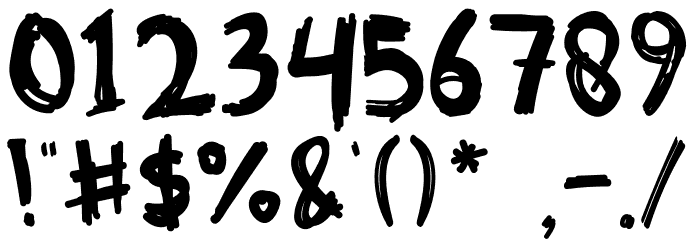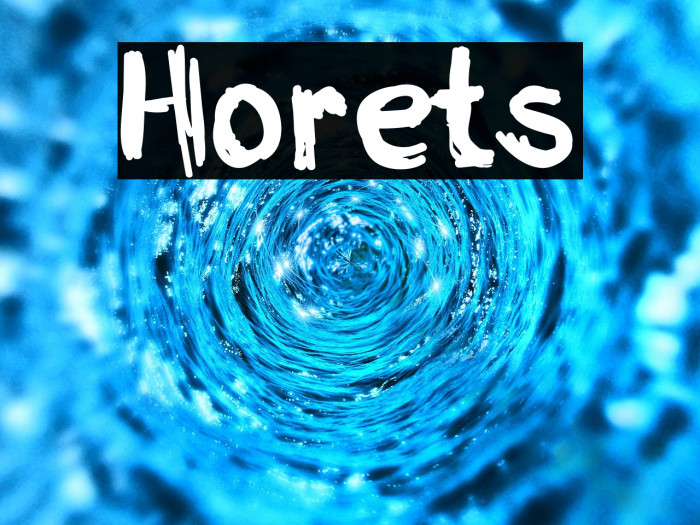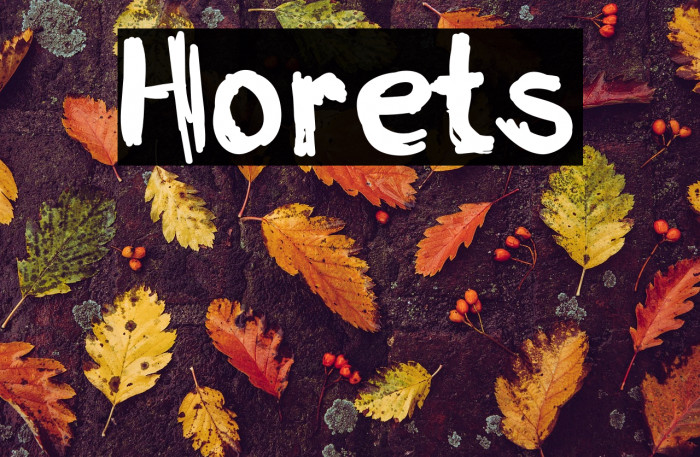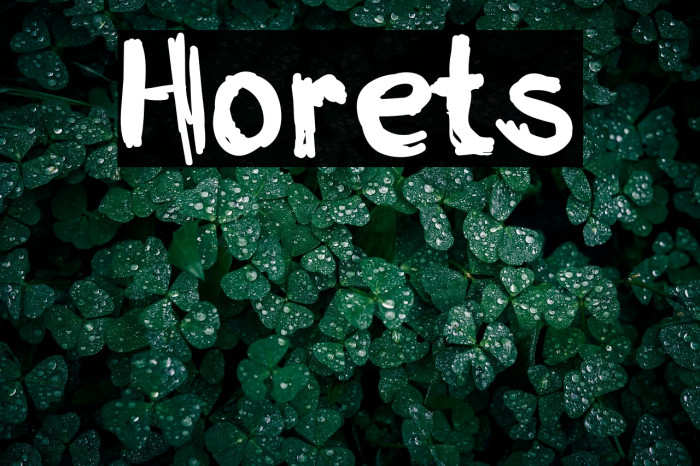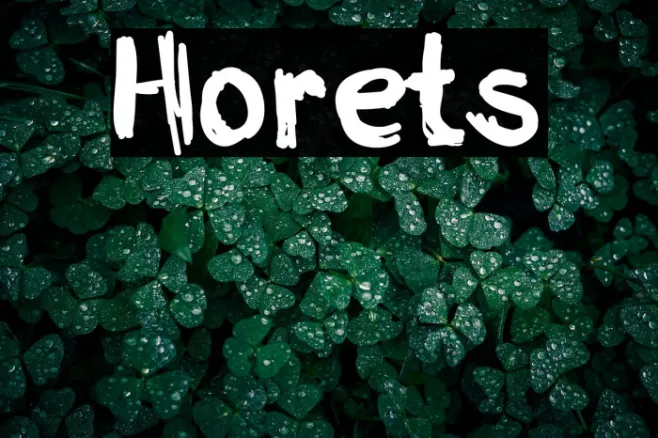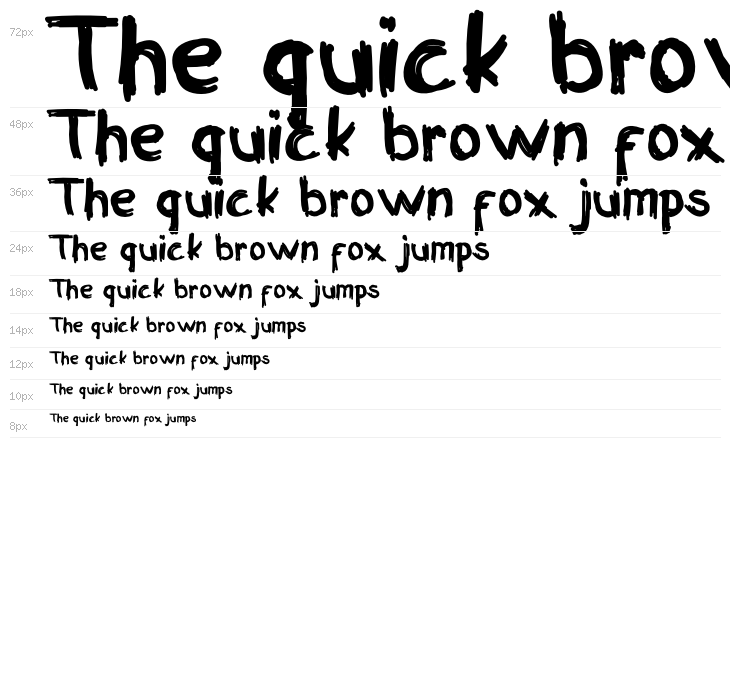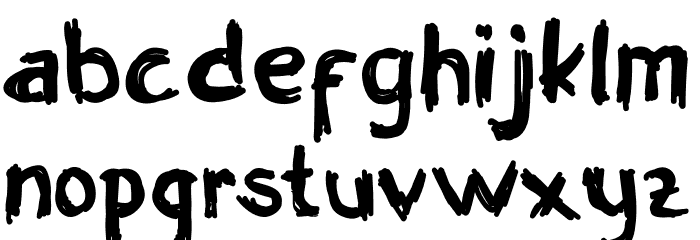
Horets Font
Horets Description
This font exhibits a bold, expressive style with a hand-painted appearance. The strokes are uneven and dynamic, giving it a raw, energetic feel. The uppercase and lowercase letters maintain a consistent style, with exaggerated curves and angles that enhance its artistic flair. The numbers and special characters follow the same design principles, ensuring a cohesive look across all glyphs. This font is ideal for projects that require a strong visual impact, such as posters, album covers, or branding for creative industries. Its unique style makes it stand out, while still being legible and versatile.
| Proposed Projects | Ideal for posters, album covers, branding, and creative projects. |